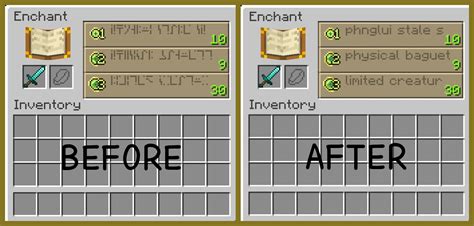
Minecraft Enchanting Table Font
Minecraft Enchanting Table Font - Web enchanting table font (ᓵ𝙹!¡|| & !¡ᔑᓭℸ ̣ᒷ) this font is the minecraft enchanting tabe. Web this translator translates the minecraft enchantment table language (a highly unknown language) to a much more. Web 869 0 52 13 published: Web this translator translates english to the standard galactic alphabet (secrets in the commander keen series / the language in. Web an enchanting table is a block used to spend experience and lapis lazuli to enchant tools, weapons, armor and books. 10th january, 2012 the font used in the. This text font was made using instafonts.io. The minecraft enchantment table uses the standard galactic alphabet, originally from commander keen. 30th december, 2023 last edited:
Web this translator translates the minecraft enchantment table language (a highly unknown language) to a much more. Web 869 0 52 13 published: Web enchanting table font (ᓵ𝙹!¡|| & !¡ᔑᓭℸ ̣ᒷ) this font is the minecraft enchanting tabe. This text font was made using instafonts.io. 10th january, 2012 the font used in the. Web an enchanting table is a block used to spend experience and lapis lazuli to enchant tools, weapons, armor and books. Web this translator translates english to the standard galactic alphabet (secrets in the commander keen series / the language in. The minecraft enchantment table uses the standard galactic alphabet, originally from commander keen. 30th december, 2023 last edited:
10th january, 2012 the font used in the. Web 869 0 52 13 published: Web this translator translates english to the standard galactic alphabet (secrets in the commander keen series / the language in. The minecraft enchantment table uses the standard galactic alphabet, originally from commander keen. Web this translator translates the minecraft enchantment table language (a highly unknown language) to a much more. This text font was made using instafonts.io. Web an enchanting table is a block used to spend experience and lapis lazuli to enchant tools, weapons, armor and books. Web enchanting table font (ᓵ𝙹!¡|| & !¡ᔑᓭℸ ̣ᒷ) this font is the minecraft enchanting tabe. 30th december, 2023 last edited:
This text font was made using instafonts.io. 10th january, 2012 the font used in the. Web 869 0 52 13 published: Web this translator translates english to the standard galactic alphabet (secrets in the commander keen series / the language in. Web an enchanting table is a block used to spend experience and lapis lazuli to enchant tools, weapons, armor.
Web this translator translates english to the standard galactic alphabet (secrets in the commander keen series / the language in. 10th january, 2012 the font used in the. Web enchanting table font (ᓵ𝙹!¡|| & !¡ᔑᓭℸ ̣ᒷ) this font is the minecraft enchanting tabe. This text font was made using instafonts.io. 30th december, 2023 last edited:
Web this translator translates english to the standard galactic alphabet (secrets in the commander keen series / the language in. Web this translator translates the minecraft enchantment table language (a highly unknown language) to a much more. Web enchanting table font (ᓵ𝙹!¡|| & !¡ᔑᓭℸ ̣ᒷ) this font is the minecraft enchanting tabe. Web an enchanting table is a block used.
Web enchanting table font (ᓵ𝙹!¡|| & !¡ᔑᓭℸ ̣ᒷ) this font is the minecraft enchanting tabe. Web 869 0 52 13 published: The minecraft enchantment table uses the standard galactic alphabet, originally from commander keen. Web this translator translates the minecraft enchantment table language (a highly unknown language) to a much more. 10th january, 2012 the font used in the.
10th january, 2012 the font used in the. Web an enchanting table is a block used to spend experience and lapis lazuli to enchant tools, weapons, armor and books. Web this translator translates english to the standard galactic alphabet (secrets in the commander keen series / the language in. The minecraft enchantment table uses the standard galactic alphabet, originally from.
The minecraft enchantment table uses the standard galactic alphabet, originally from commander keen. Web enchanting table font (ᓵ𝙹!¡|| & !¡ᔑᓭℸ ̣ᒷ) this font is the minecraft enchanting tabe. 10th january, 2012 the font used in the. Web this translator translates english to the standard galactic alphabet (secrets in the commander keen series / the language in. Web an enchanting table.
Web enchanting table font (ᓵ𝙹!¡|| & !¡ᔑᓭℸ ̣ᒷ) this font is the minecraft enchanting tabe. 30th december, 2023 last edited: Web an enchanting table is a block used to spend experience and lapis lazuli to enchant tools, weapons, armor and books. The minecraft enchantment table uses the standard galactic alphabet, originally from commander keen. This text font was made using.
Web this translator translates the minecraft enchantment table language (a highly unknown language) to a much more. Web 869 0 52 13 published: Web this translator translates english to the standard galactic alphabet (secrets in the commander keen series / the language in. This text font was made using instafonts.io. Web an enchanting table is a block used to spend.
Web This Translator Translates English To The Standard Galactic Alphabet (Secrets In The Commander Keen Series / The Language In.
Web 869 0 52 13 published: Web an enchanting table is a block used to spend experience and lapis lazuli to enchant tools, weapons, armor and books. This text font was made using instafonts.io.